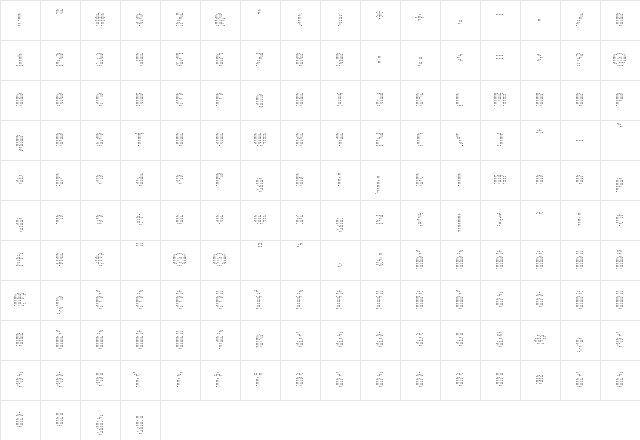
Asterix Light Regular
Regular · Fonthead Design Inc. Ethan Dunham ·
Design Context for Asterix Light Typeface
Asterix Light takes a measured approach to typography — its balanced proportions and neutral character make it a reliable workhorse for both digital and print work. The delicate stroke weight brings airiness and refinement to layouts.